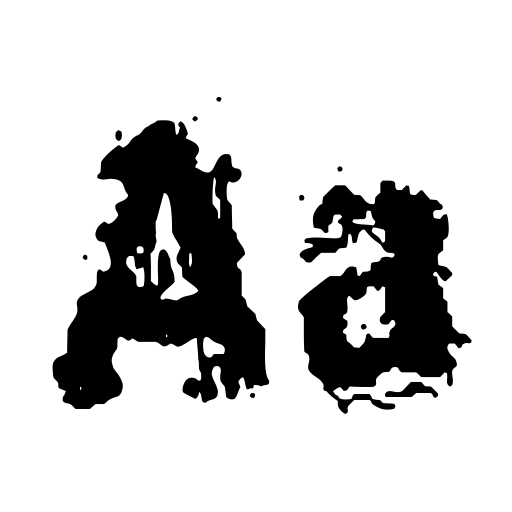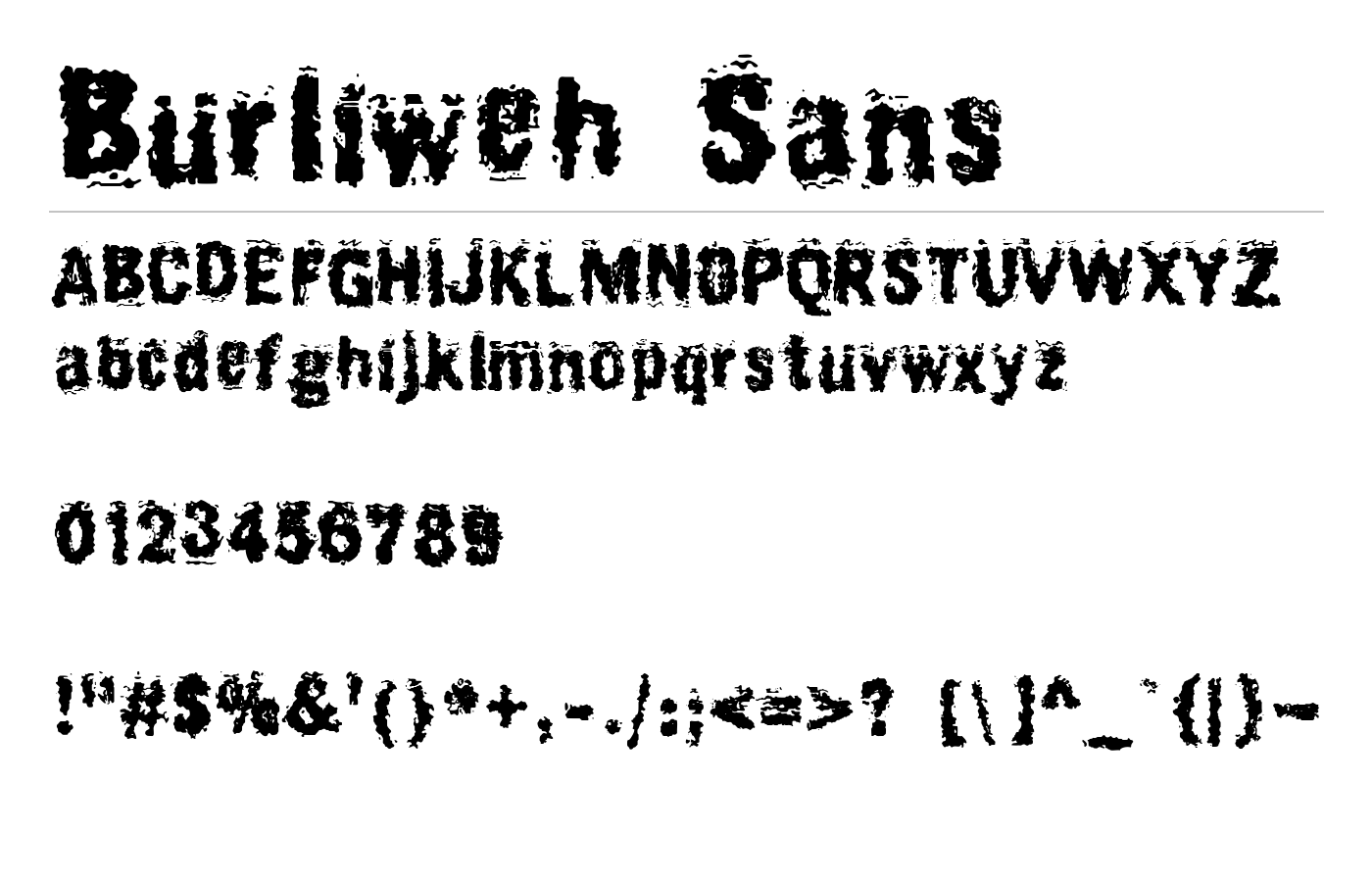
Burliweh Sans is a bold, distressed sans serif font featuring a rough, textured appearance that gives it an organic, grunge-like character. Its irregular edges and heavy weight make it ideal for creating striking headlines or logos with a raw, edgy feel. This font works well in designs seeking a rebellious or artistic vibe, perfect for posters, apparel branding, or alternative lifestyle projects.
Burliweh Sans Font